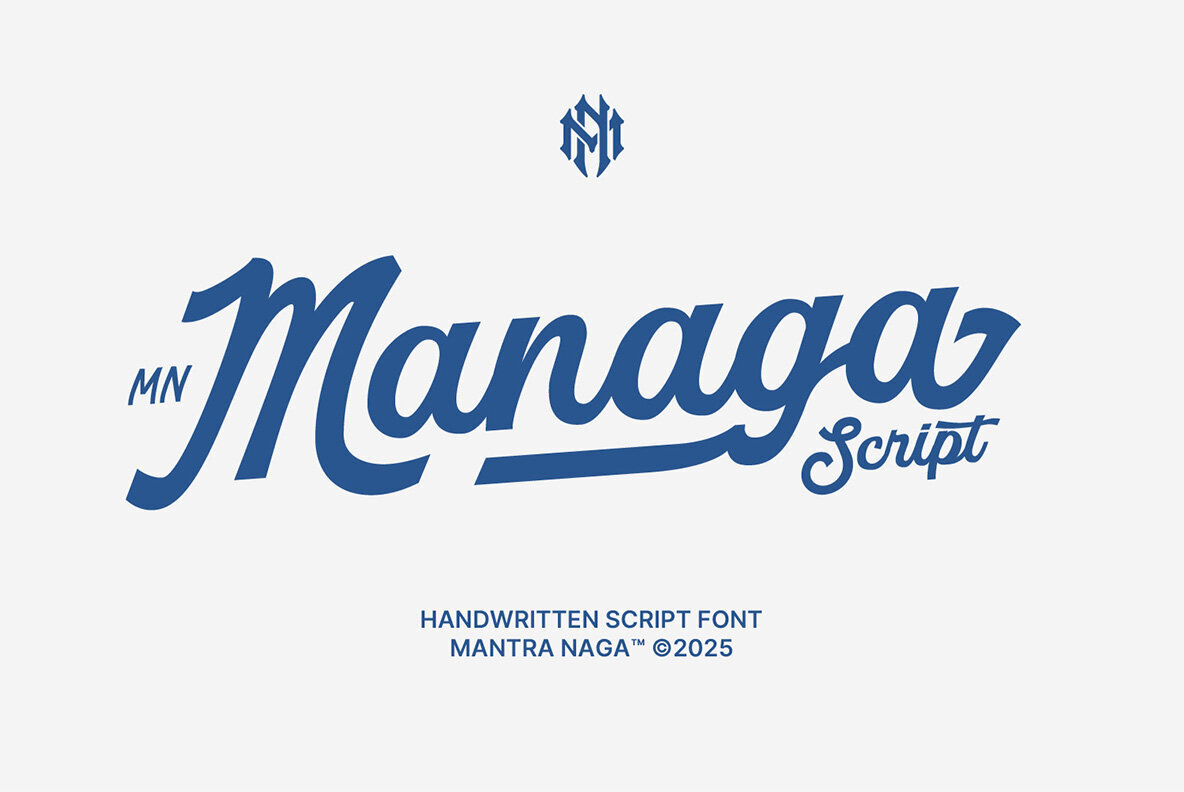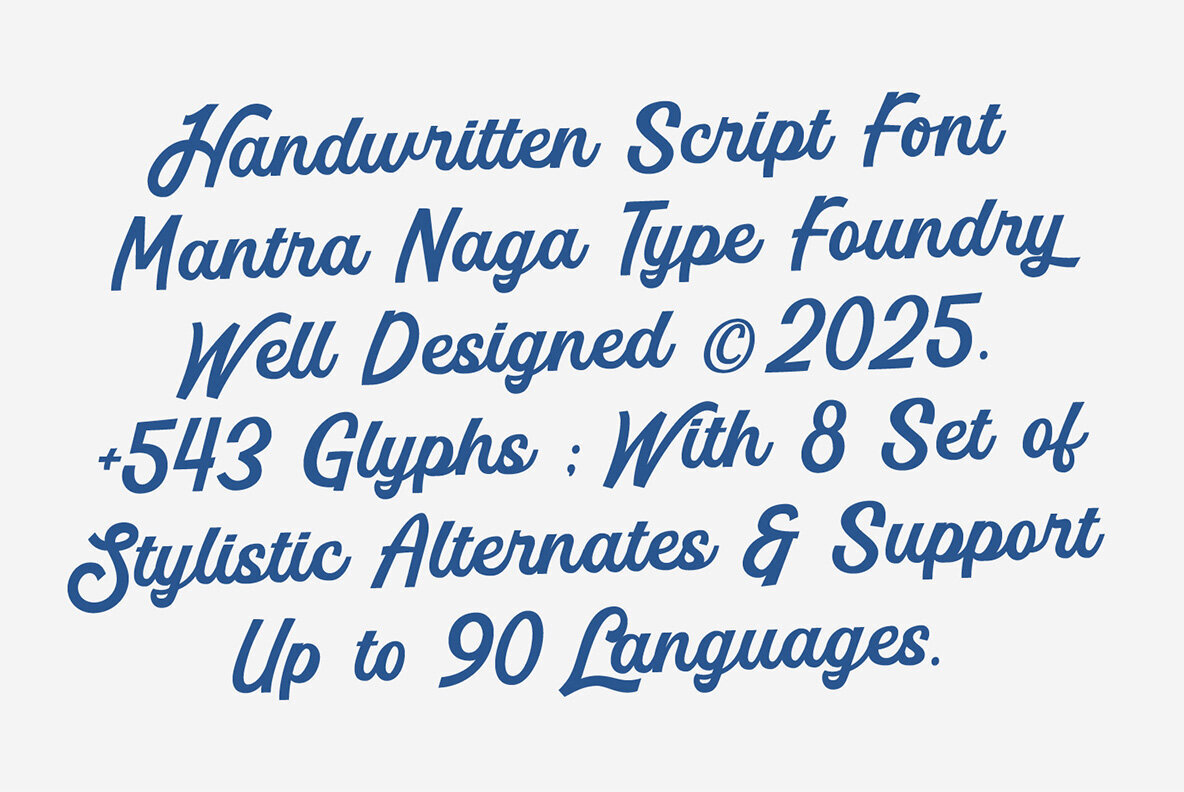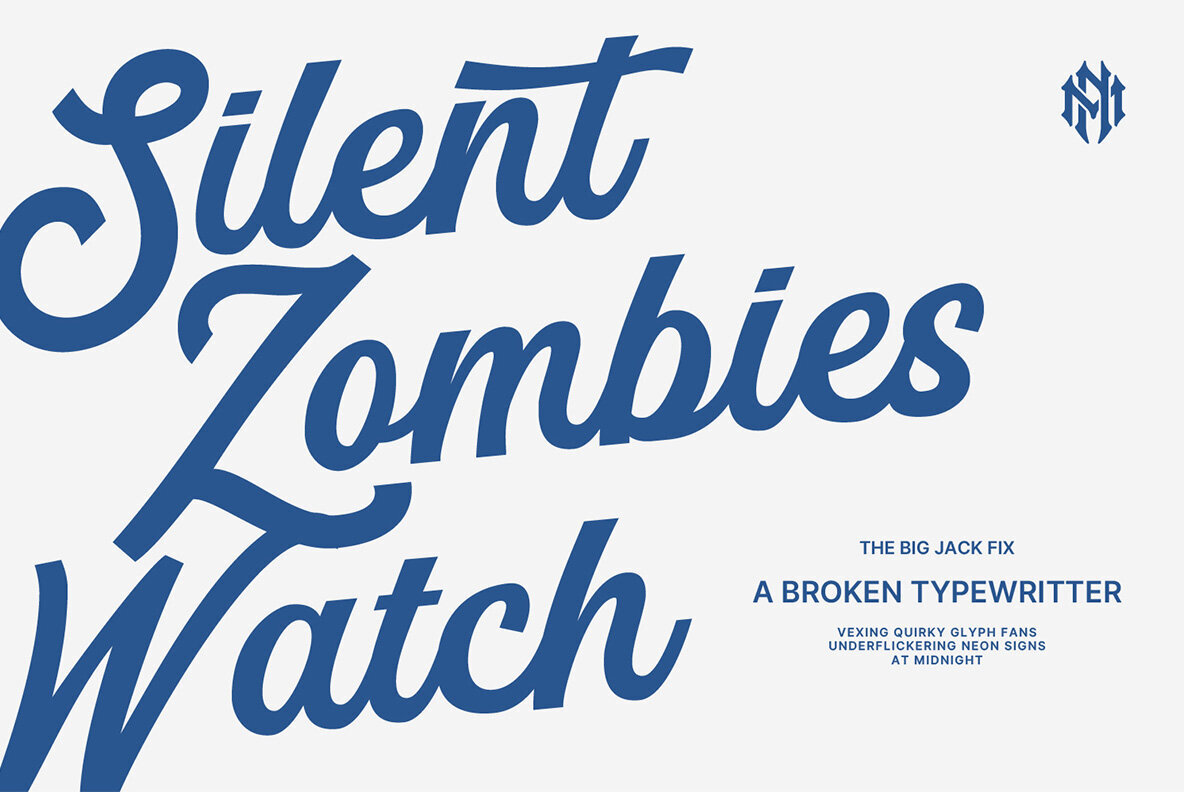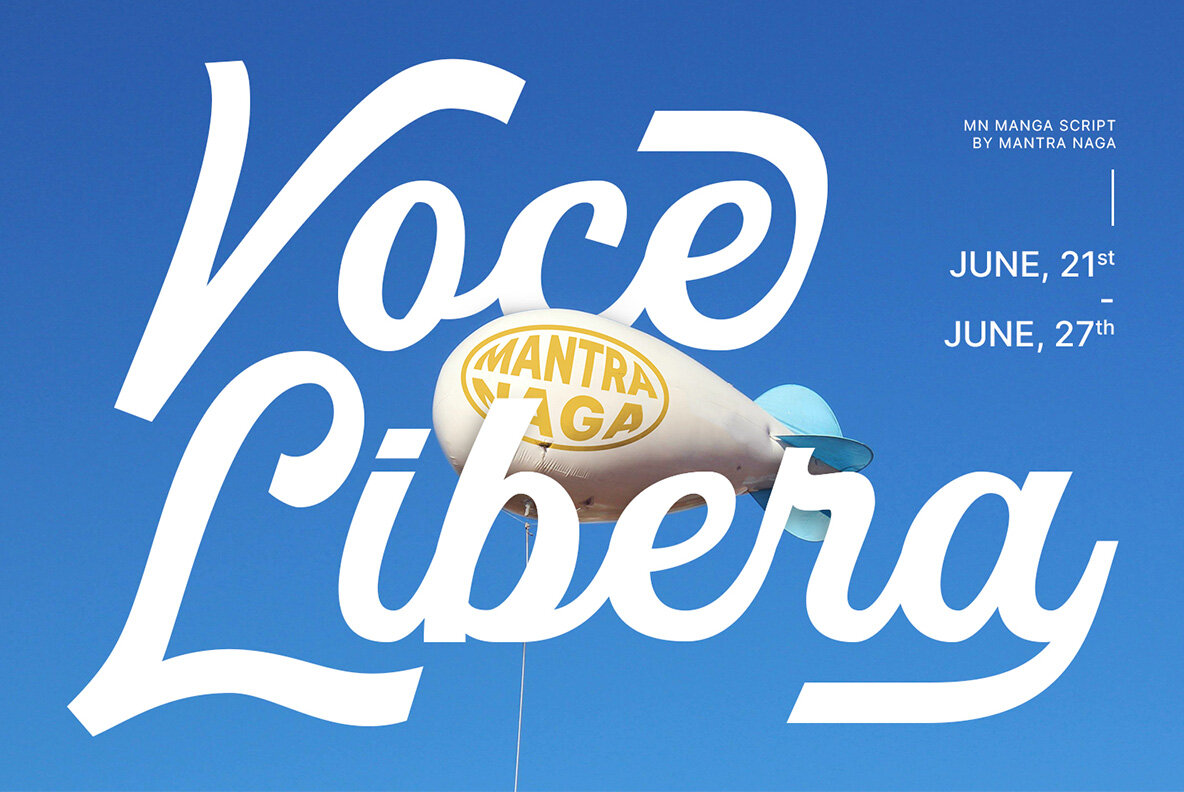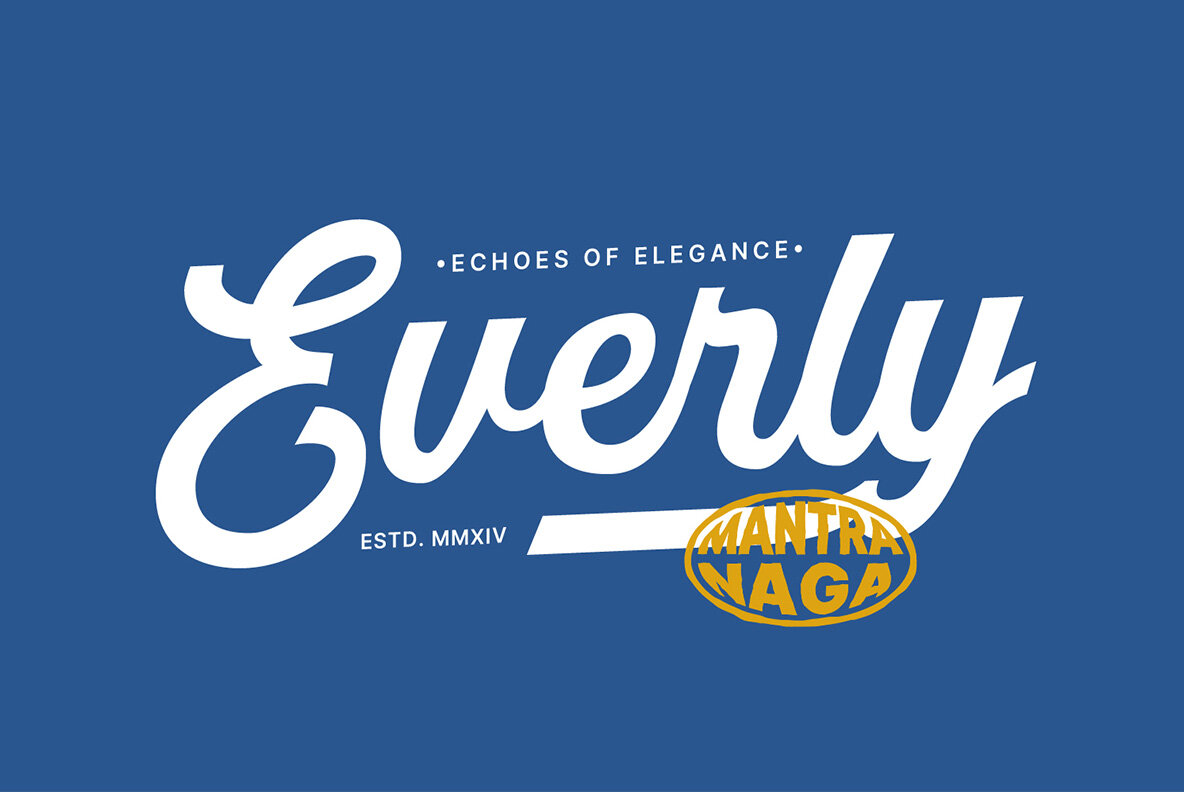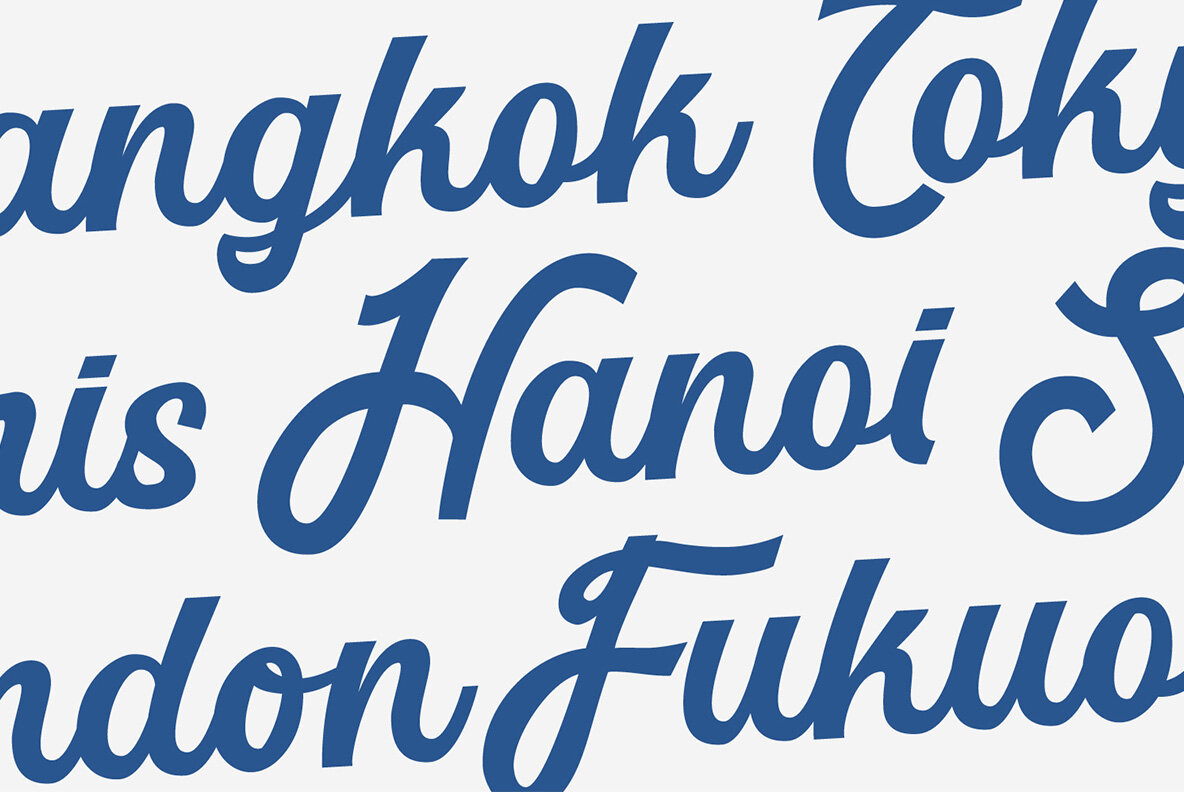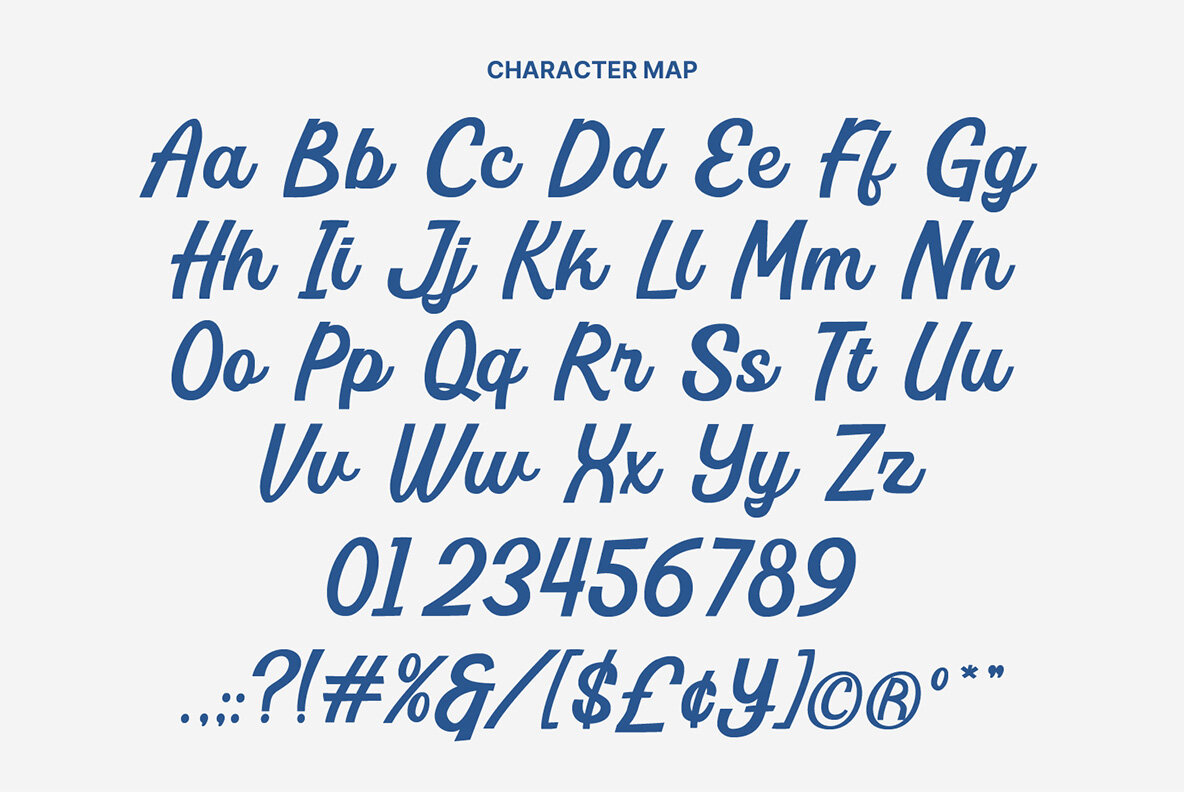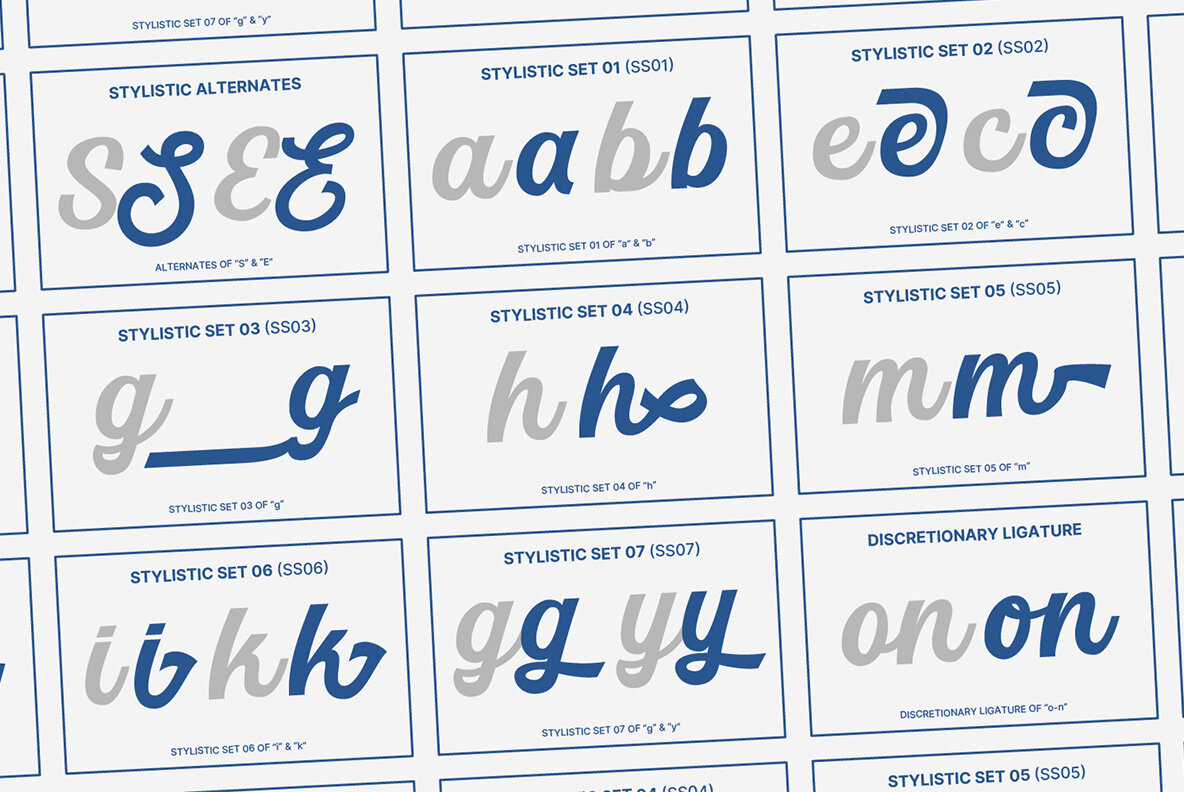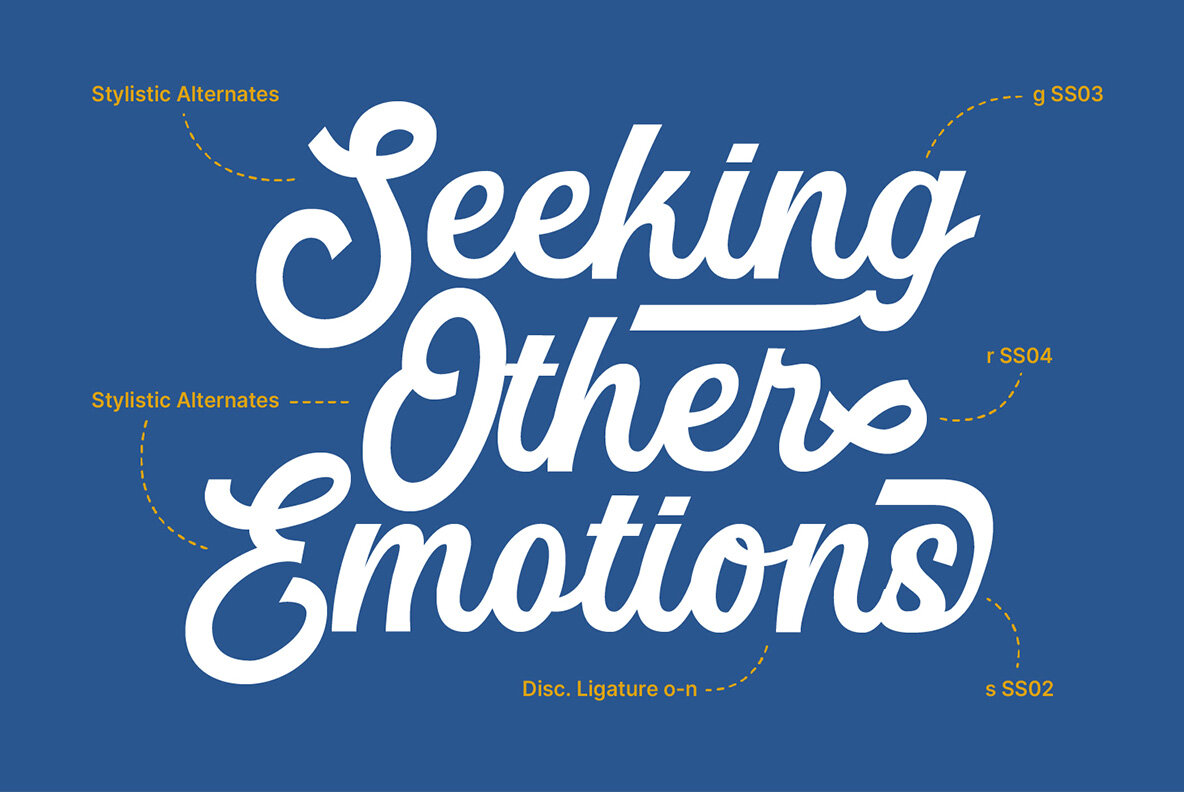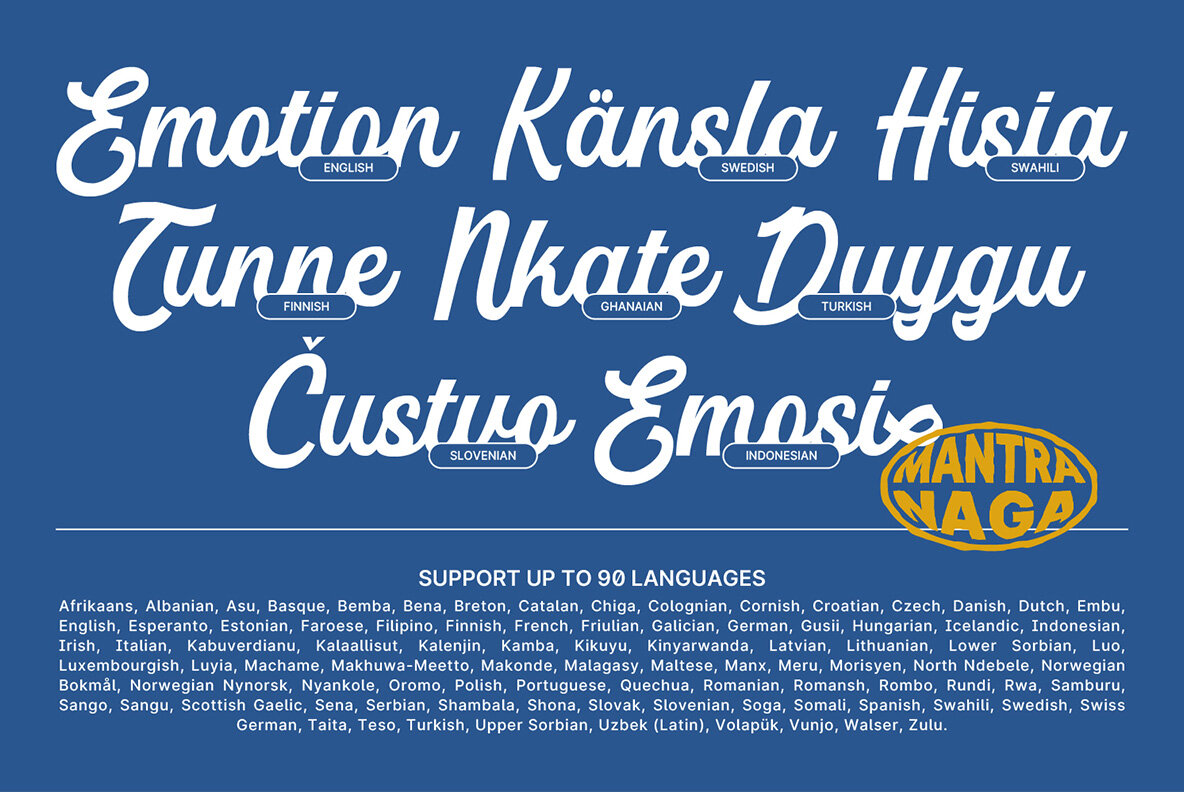
MN Managa Script Font
MN Managa Script is an exceptional handwritten-style script font characterized by flat stroke endings that preserve its unique, hand-drawn charm. Offering an impressive array of 543 glyphs, it includes eight sets of stylistic alternates and supports a total of 90 languages, ensuring wide applicability across diverse projects. Perfectly suited for striking headlines, distinctive logotypes, captivating branding initiatives, eye-catching packaging, and engaging merchandise designs, MN Managa Script provides remarkable versatility without compromising its distinct personality. The name "Managa" stands for Mantra Naga, signifying this as our inaugural special-edition type project, emphasizing both creativity and cultural significance.MN Managa Script: Handwritten Style With Authentic Character